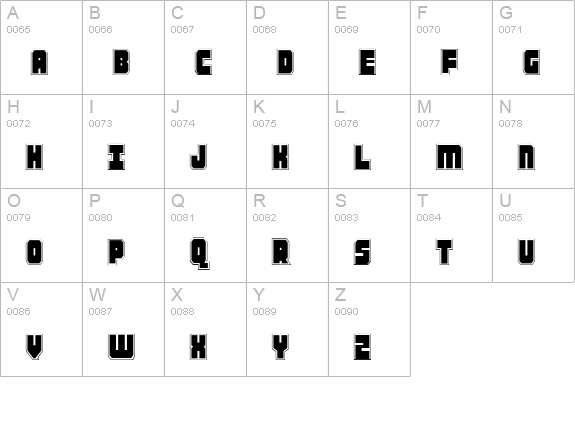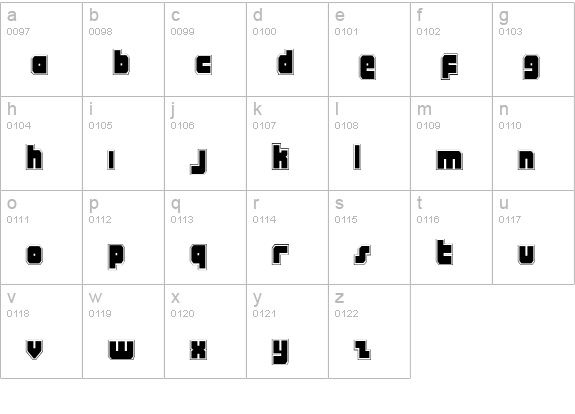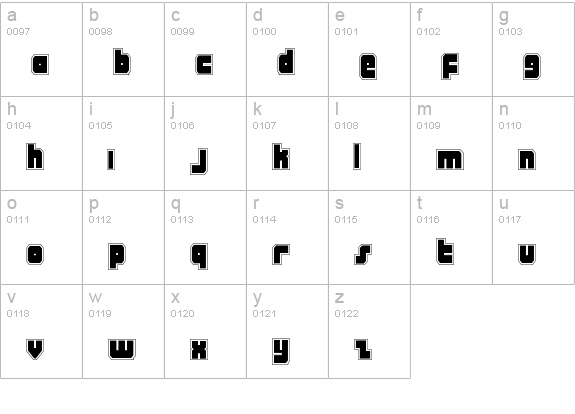
Alpha Taurus Pro is a modern and stylish font that exudes sophistication and elegance. With its clean lines and sleek design, this typeface is perfect for a wide range of design projects, from branding to editorial layouts. The versatility of Alpha Taurus Pro makes it ideal for both digital and print applications, ensuring that your text stands out beautifully. The best part about Alpha Taurus Pro is that it is completely free to download at FontsMarket.com. This means that you can access this high-quality font without any cost, making it a valuable addition to your font library. Whether you are a professional designer or a casual enthusiast, Alpha Taurus Pro offers a premium look without the premium price tag. Download it today and elevate your designs with this stunning typeface.